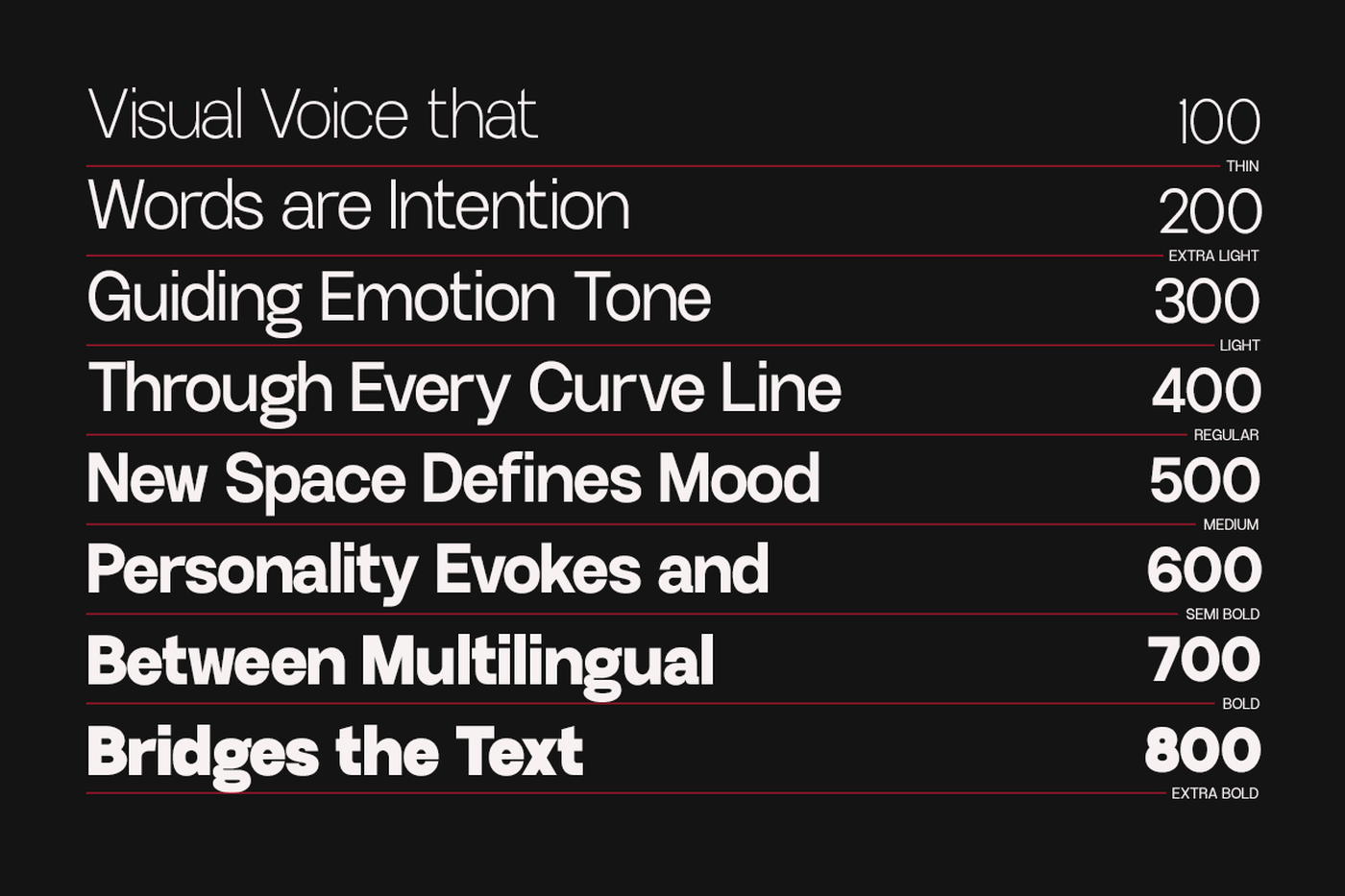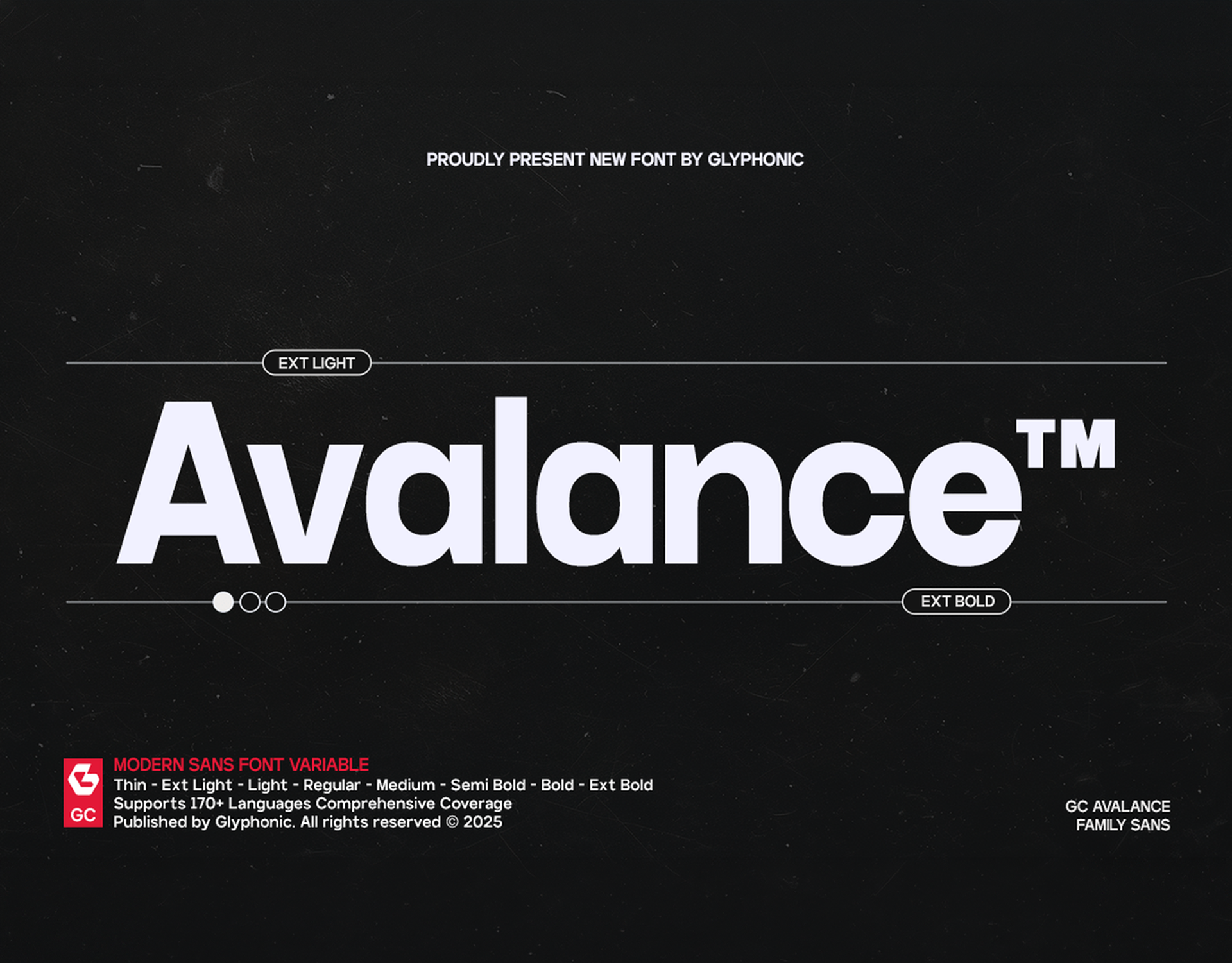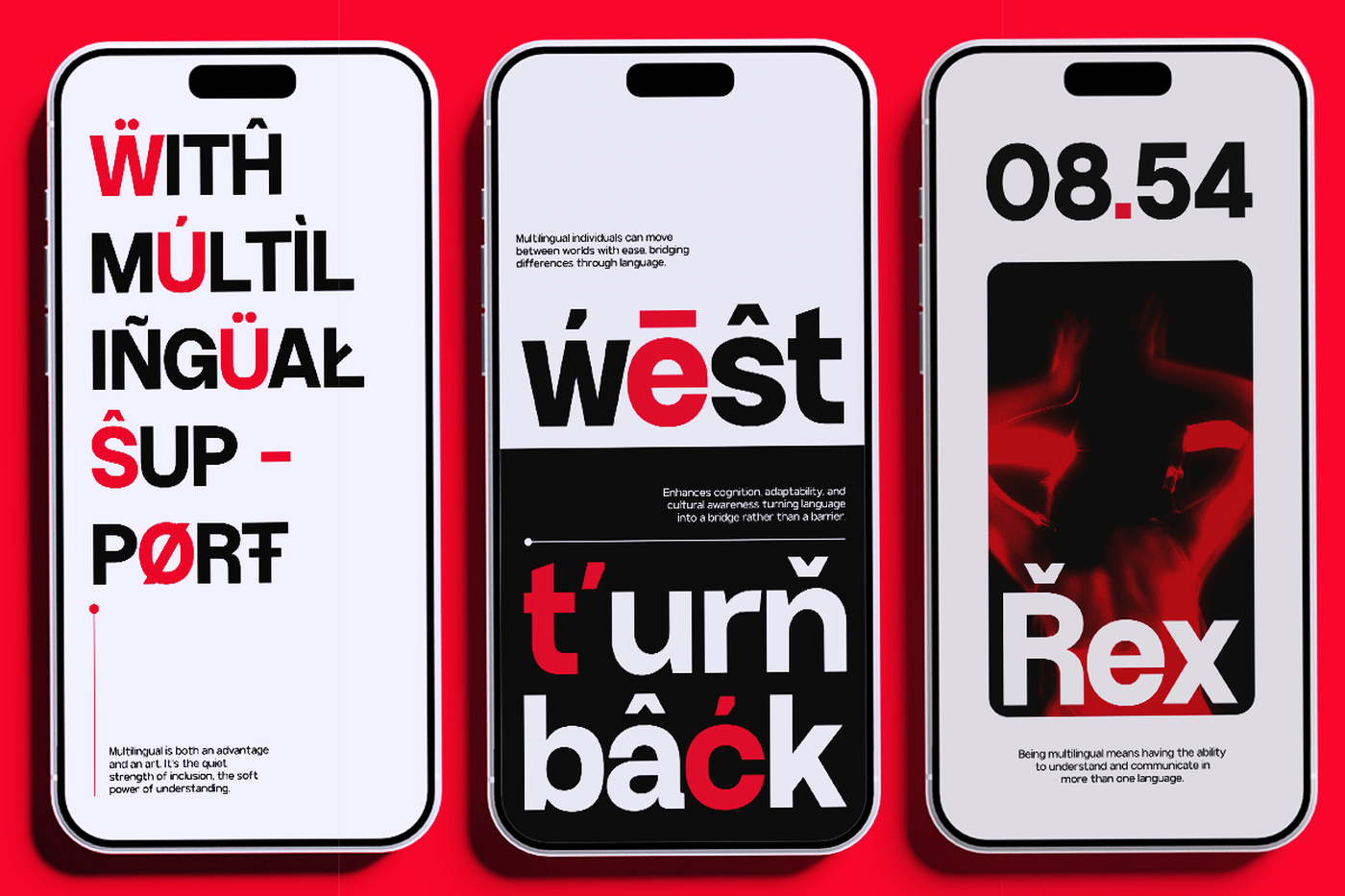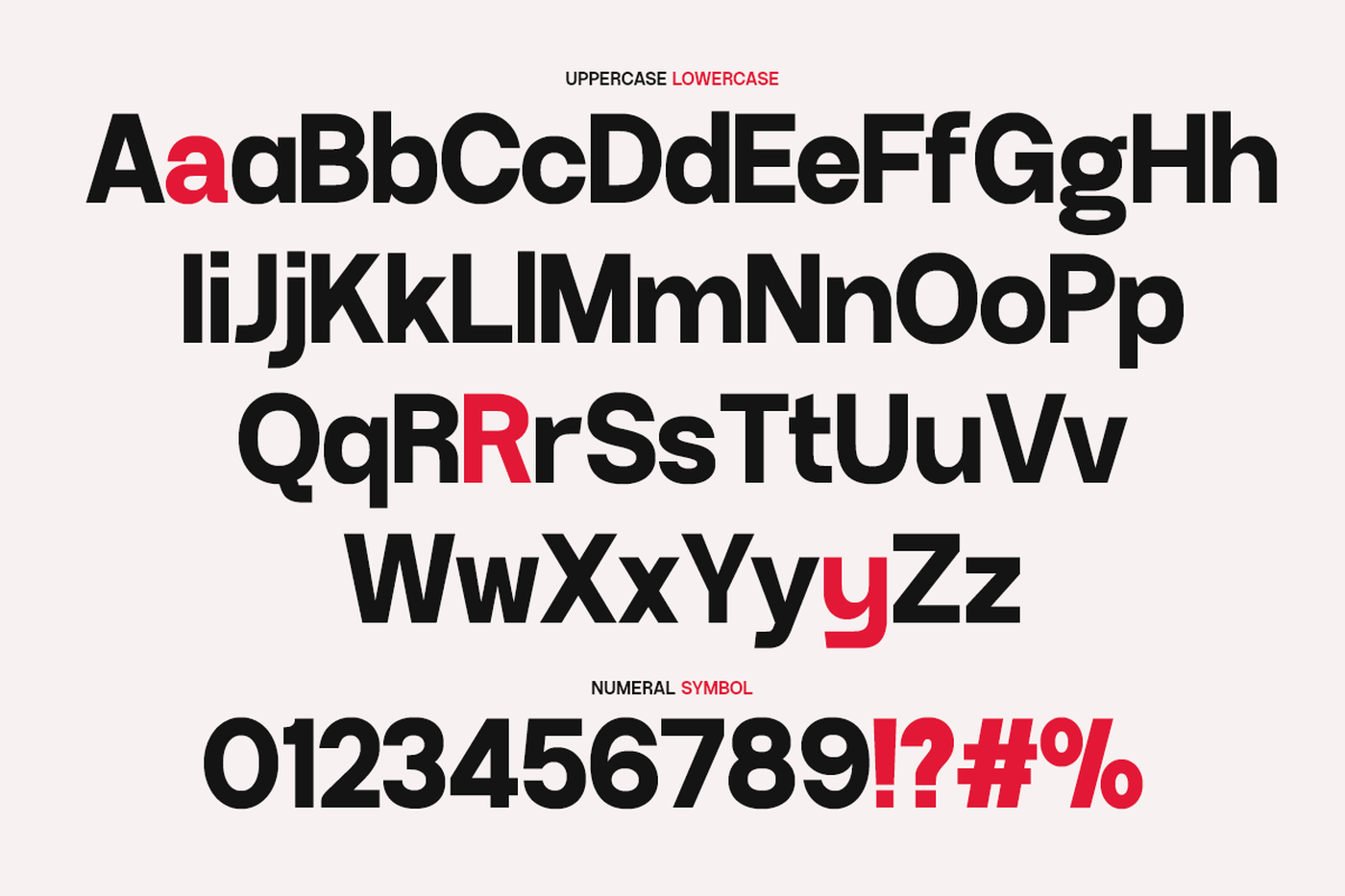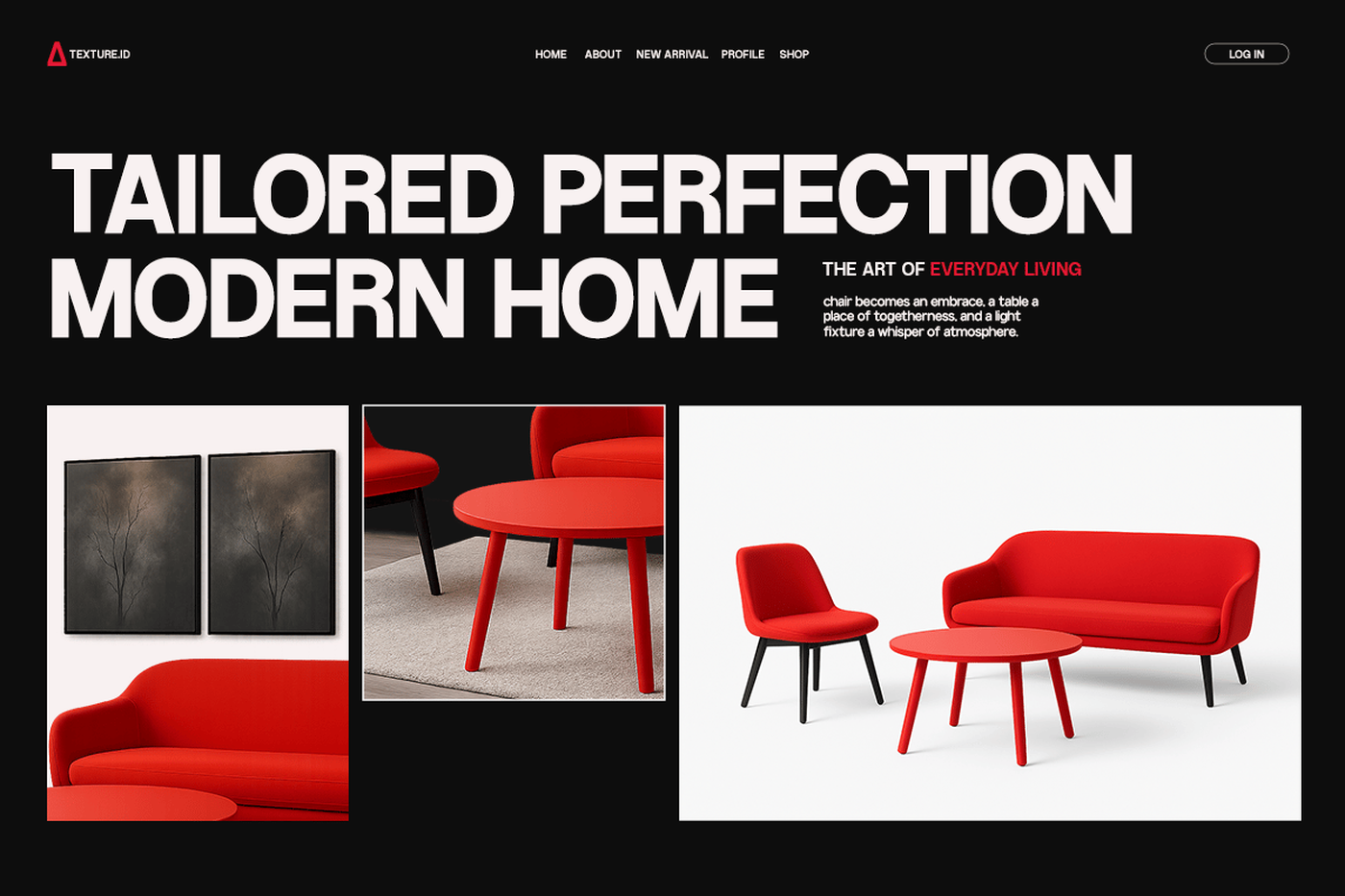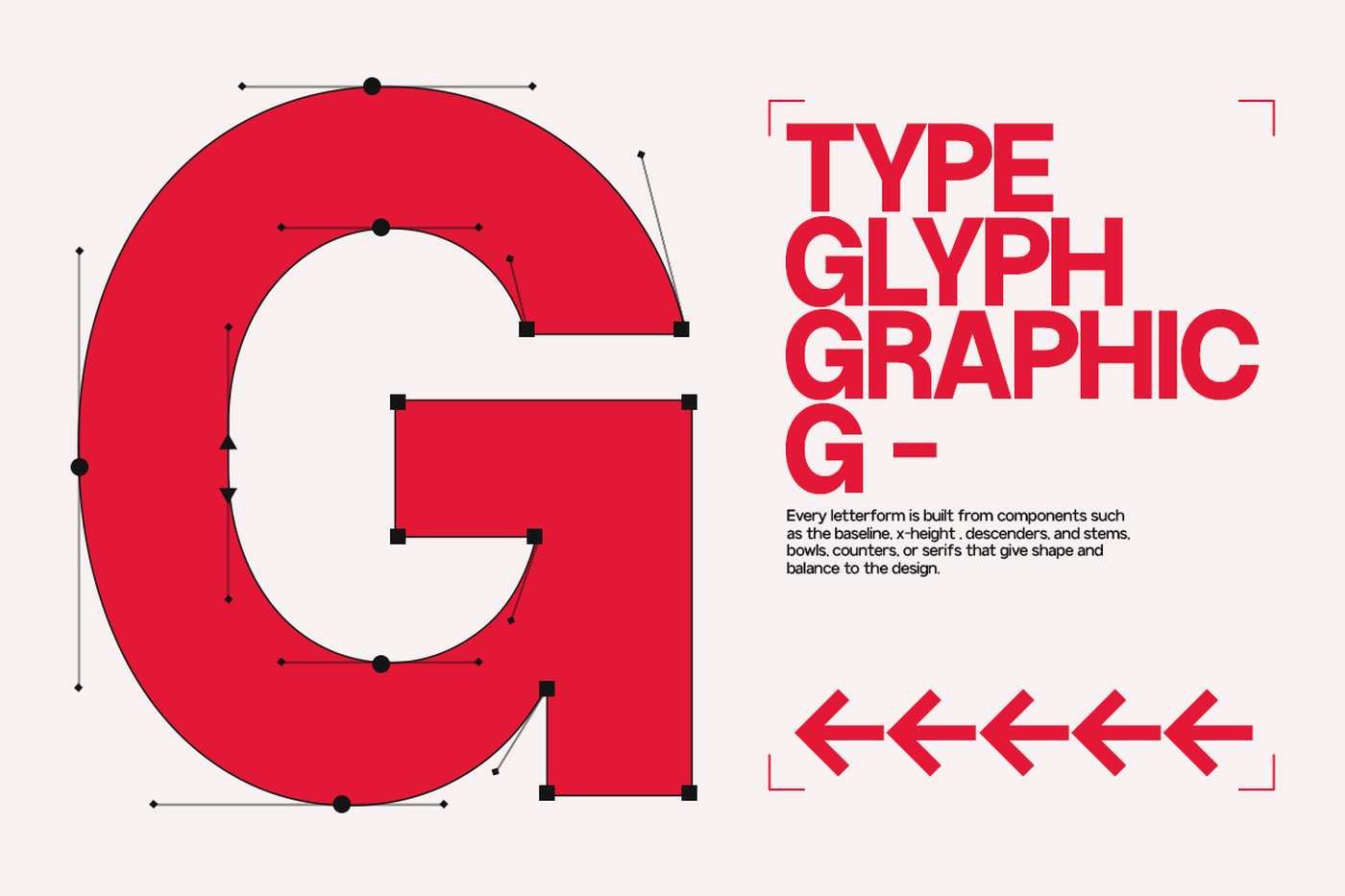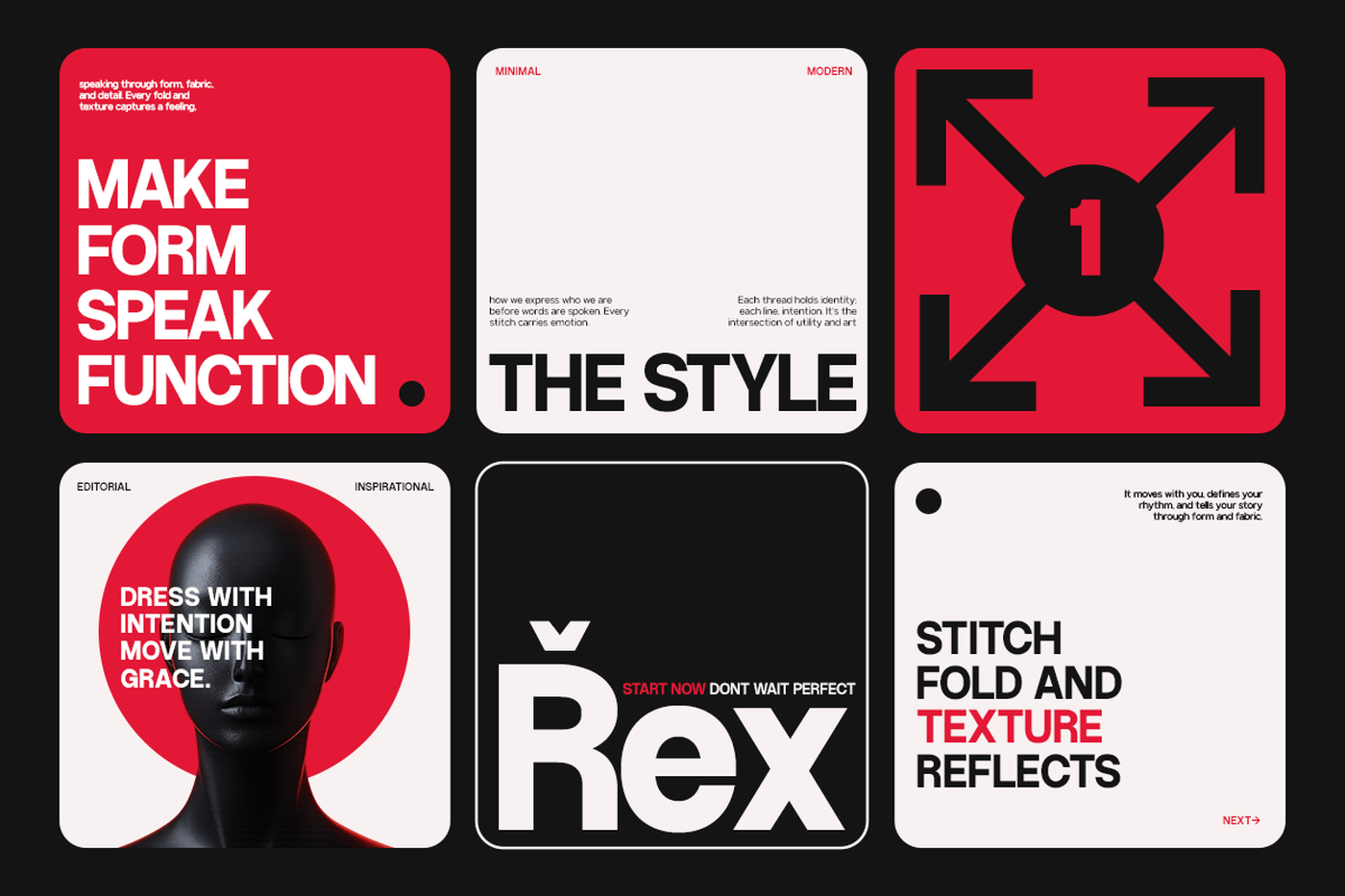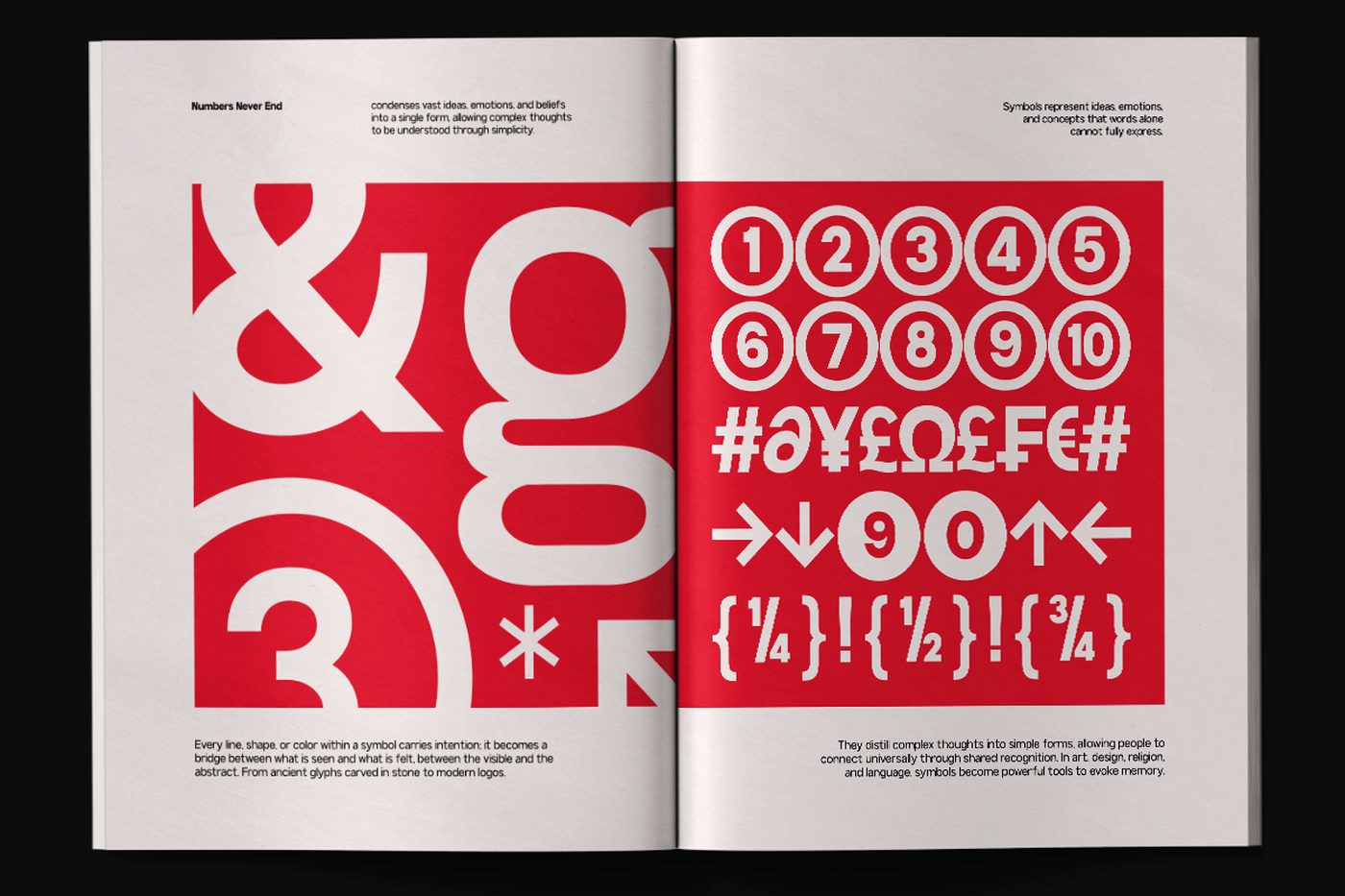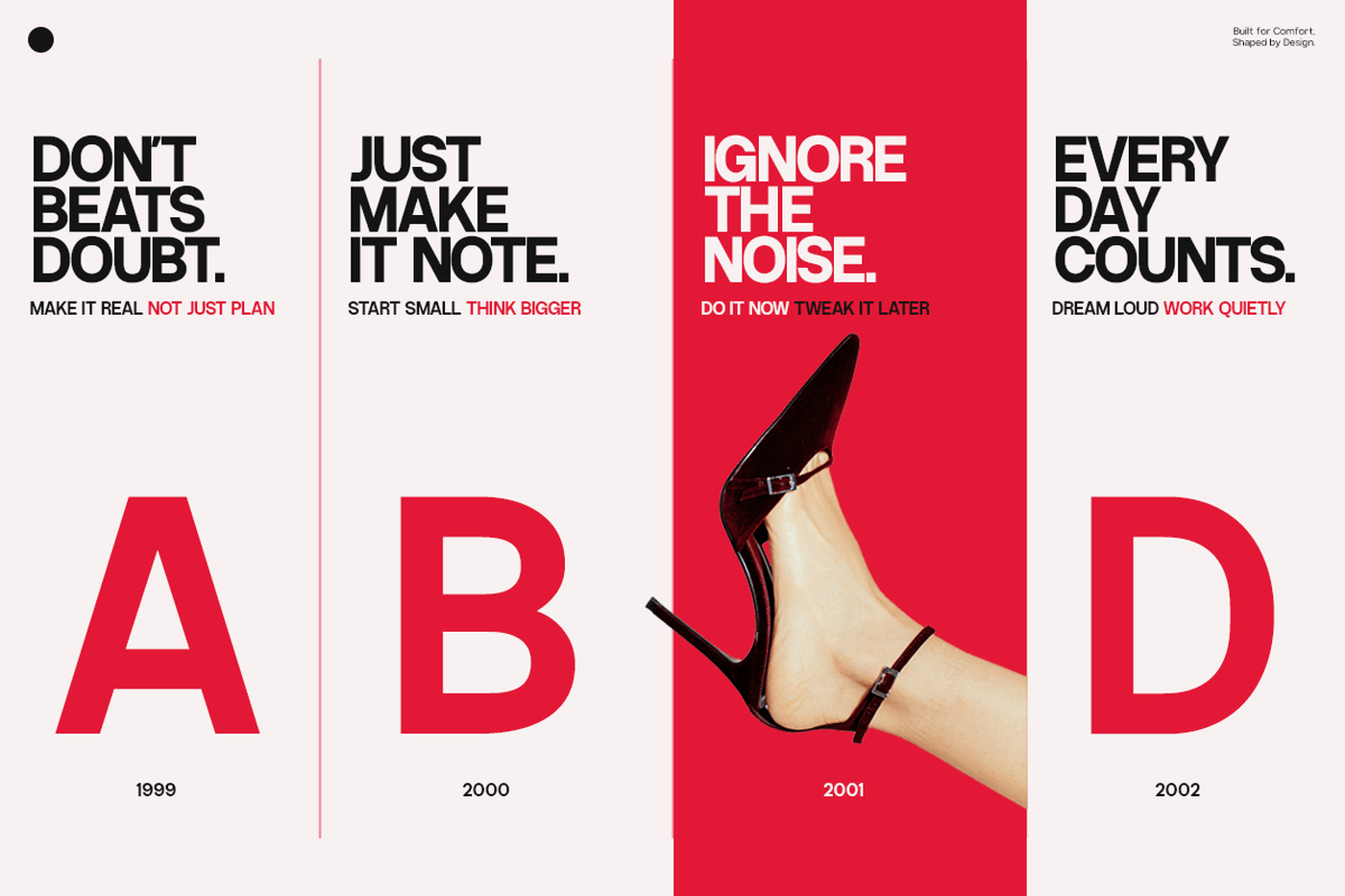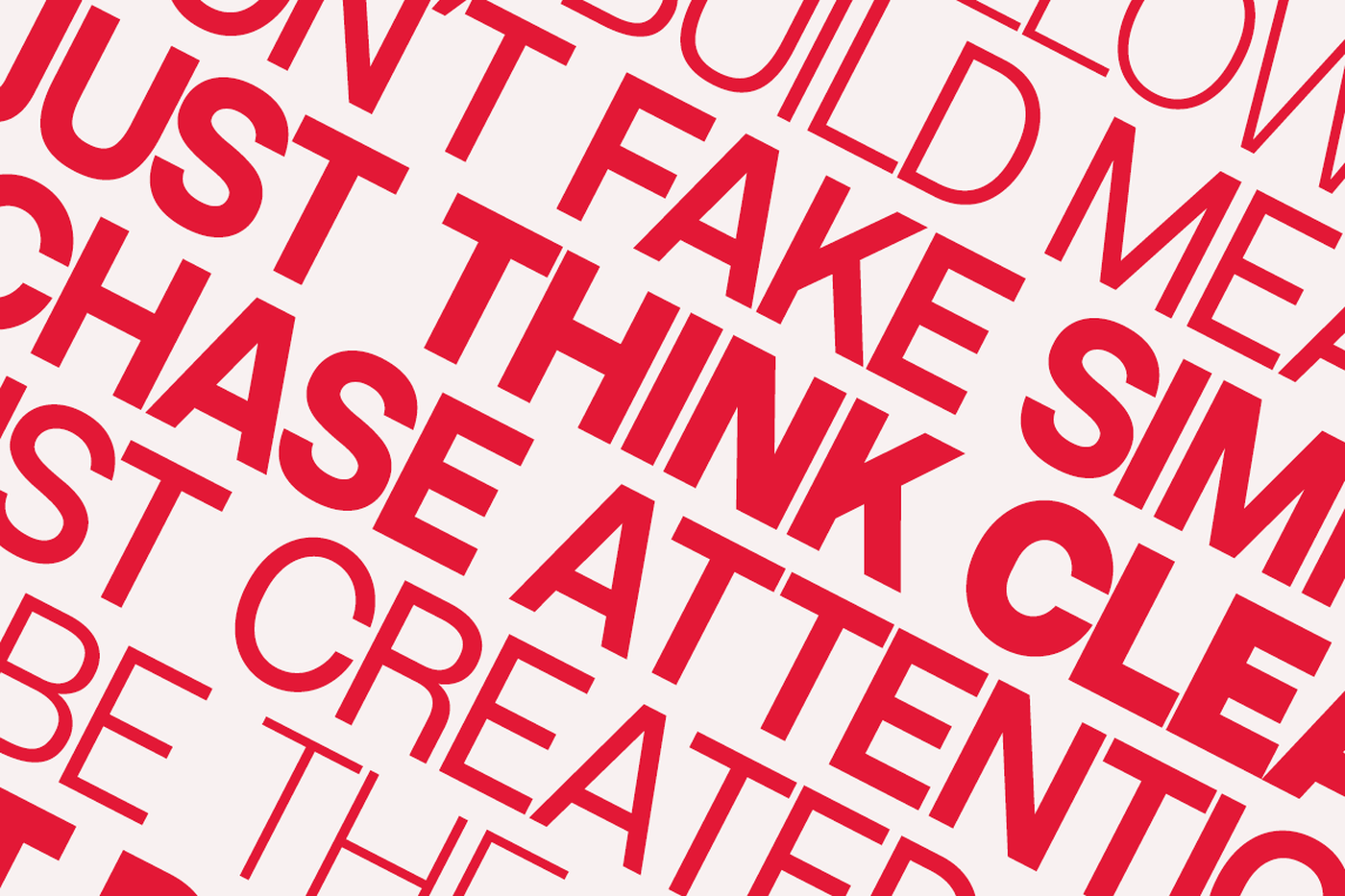
Avalance - Neo Modern Font Family
Avalance is a contemporary sans serif font family crafted for precision, balance, and versatility. With its clean geometric structure and smooth proportions, GC Avalance delivers a bold yet refined voice that adapts seamlessly across digital and print design. Designed for clarity in motion and stillness, it brings modern sophistication to any creative project. Perfect for branding, editorial layouts, interfaces, and bold visual identities, GC Avalance embodies a confident modern aesthetic without sacrificing readability. Each weight—from Thin to Extra Bold—has been carefully tuned for harmony and impact, making it ideal for both headlines and body text.